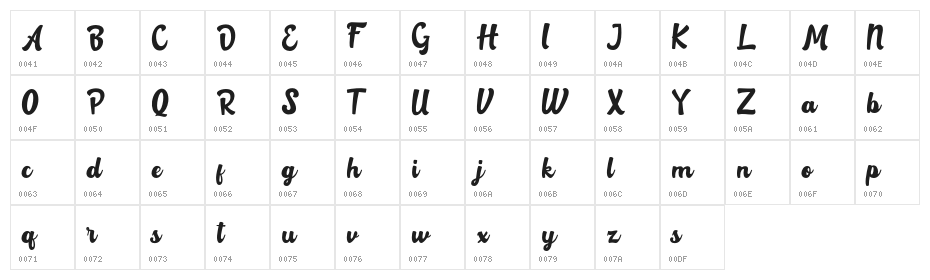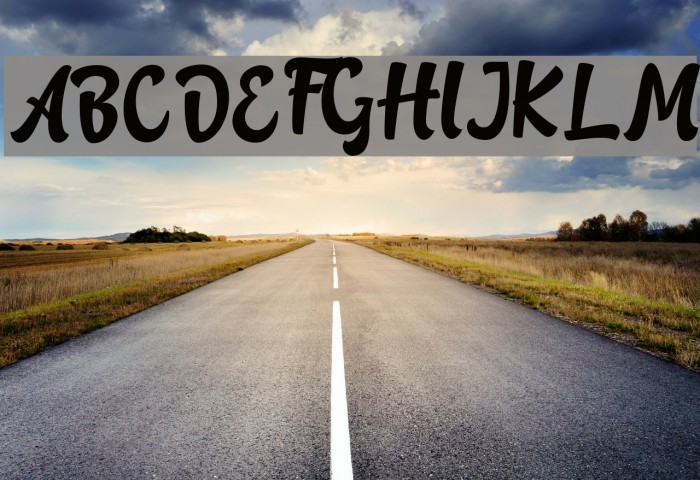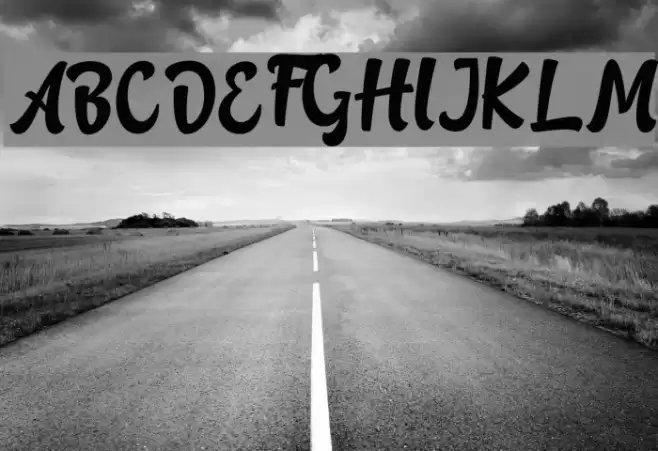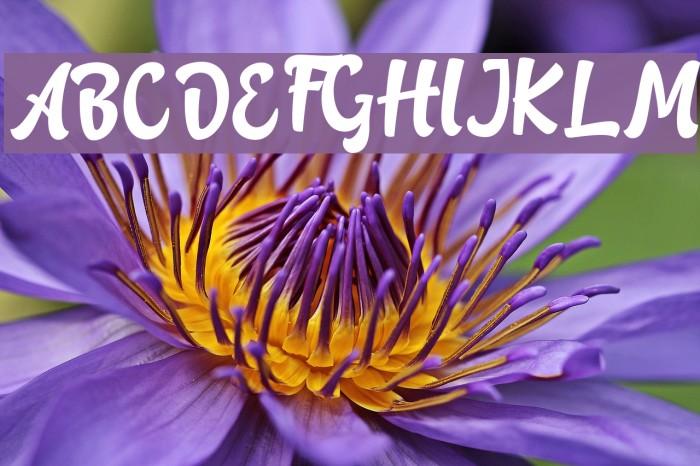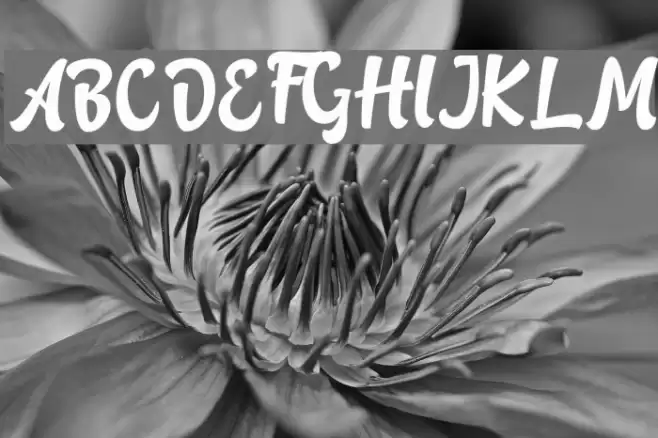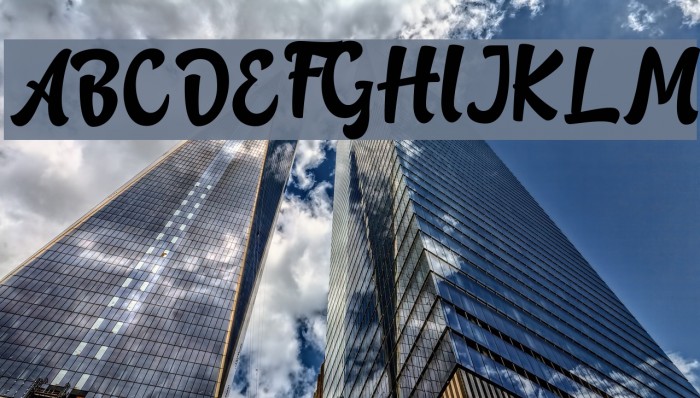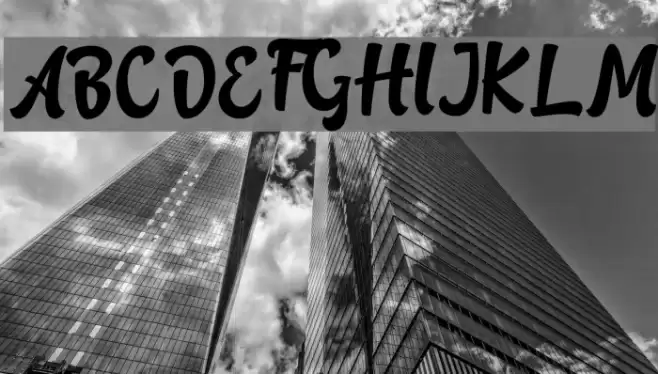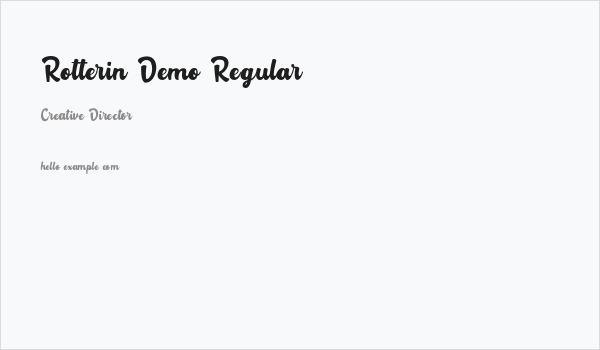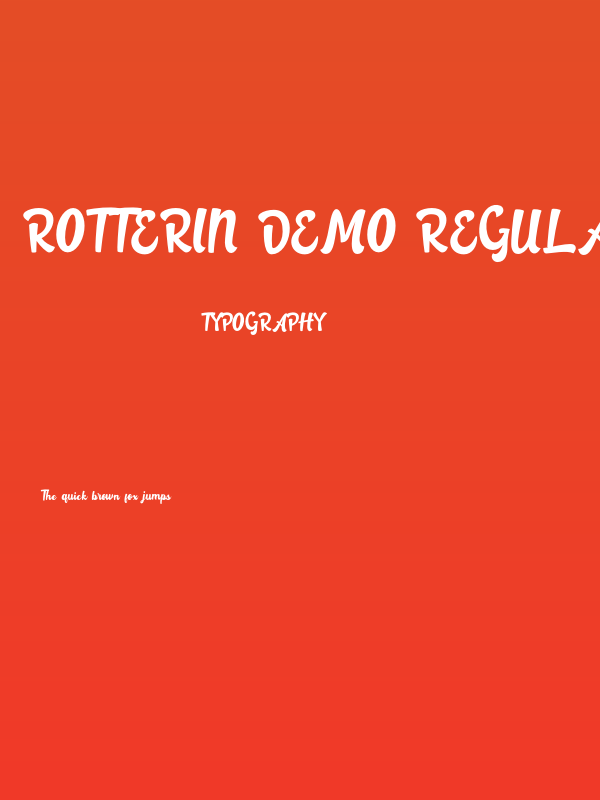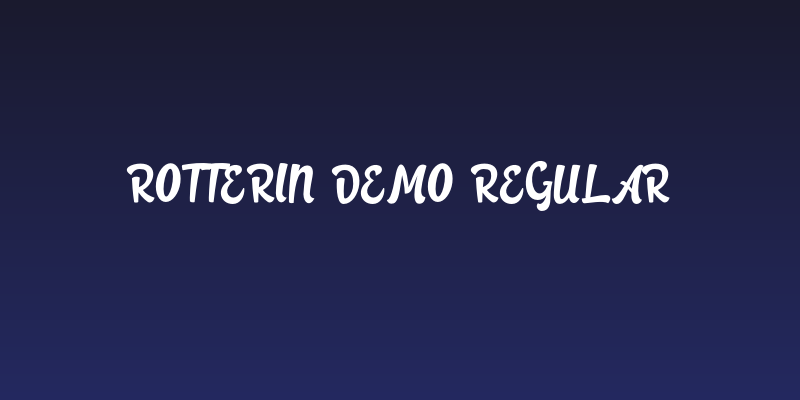
Rotterin Demo Regular Font
Rotterin Demo Regular Description
This font features a bold and expressive script style with smooth, flowing curves and a dynamic presence. The uppercase letters are characterized by their dramatic swashes and loops, giving them a sense of movement and flair. The lowercase letters maintain a consistent rhythm, with rounded forms and slightly exaggerated terminals that enhance their legibility. The overall design is playful yet sophisticated, making it suitable for a variety of creative applications. The font's bold weight and medium contrast in stroke thickness contribute to its strong visual impact, while the character spacing is relatively tight, ensuring a cohesive appearance.
| Proposed Projects | Ideal for branding, invitations, greeting cards, and creative headlines. |